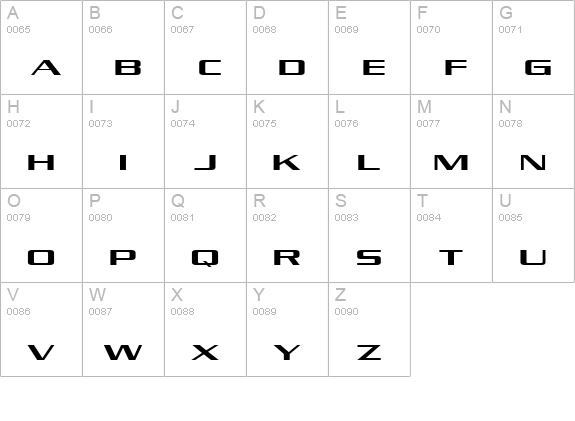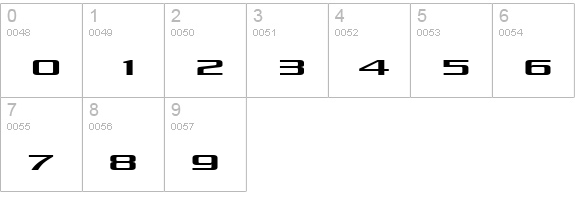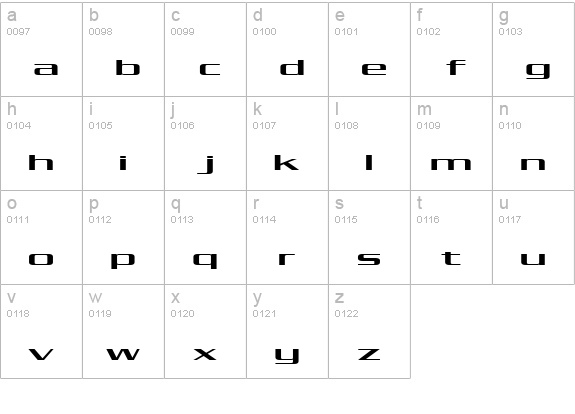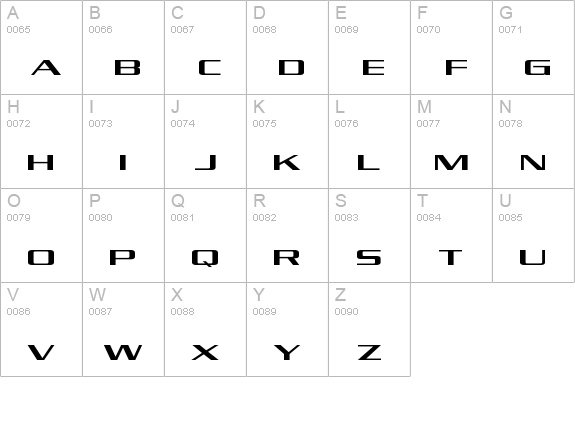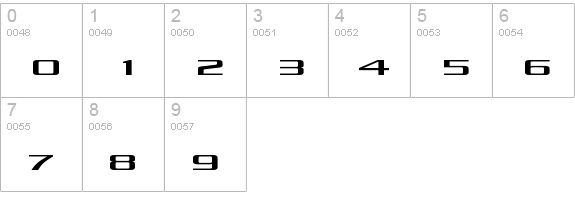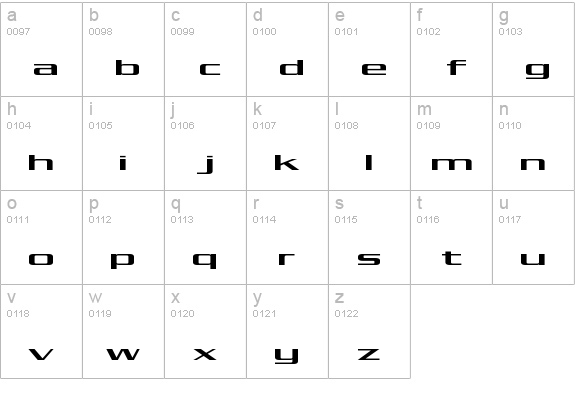
Kubra_Extended Font Details
Introducing Kubra_Extended Font - a modern and stylish typeface designed to make your projects stand out. With its sleek lines and elegant curves, Kubra_Extended is perfect for a wide range of design applications, from branding to signage to digital media. This versatile font offers a contemporary look that is both professional and eye-catching. Its extended version adds a touch of sophistication and uniqueness to any text or headline. Best of all, Kubra_Extended Font is completely free to download at FontsMarket.com. Whether you're a designer, a business owner, or a creative individual looking to add a touch of flair to your projects, Kubra_Extended Font is the perfect choice. Download it today and elevate your designs to the next level!